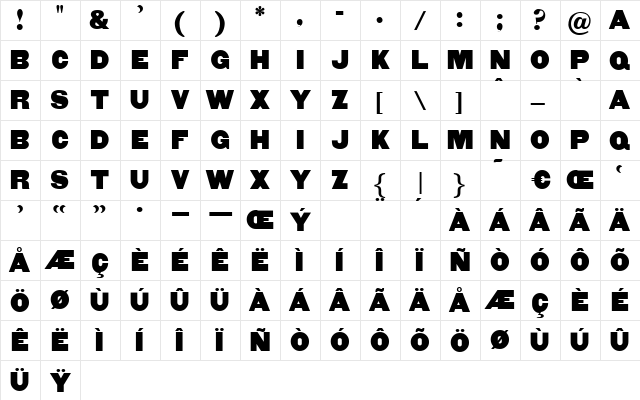
ElliotTwo Regular
Design Context for ElliotTwo Typeface
ElliotTwo takes a measured approach to typography — its balanced proportions and neutral character make it a reliable workhorse for both digital and print work.
Pro Tip: Use ElliotTwo in both headline and body roles to test its range before committing to a single application.